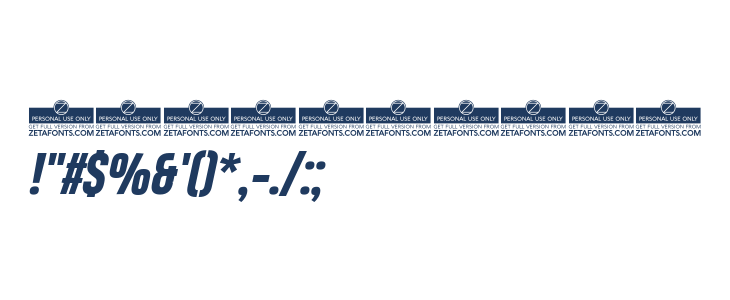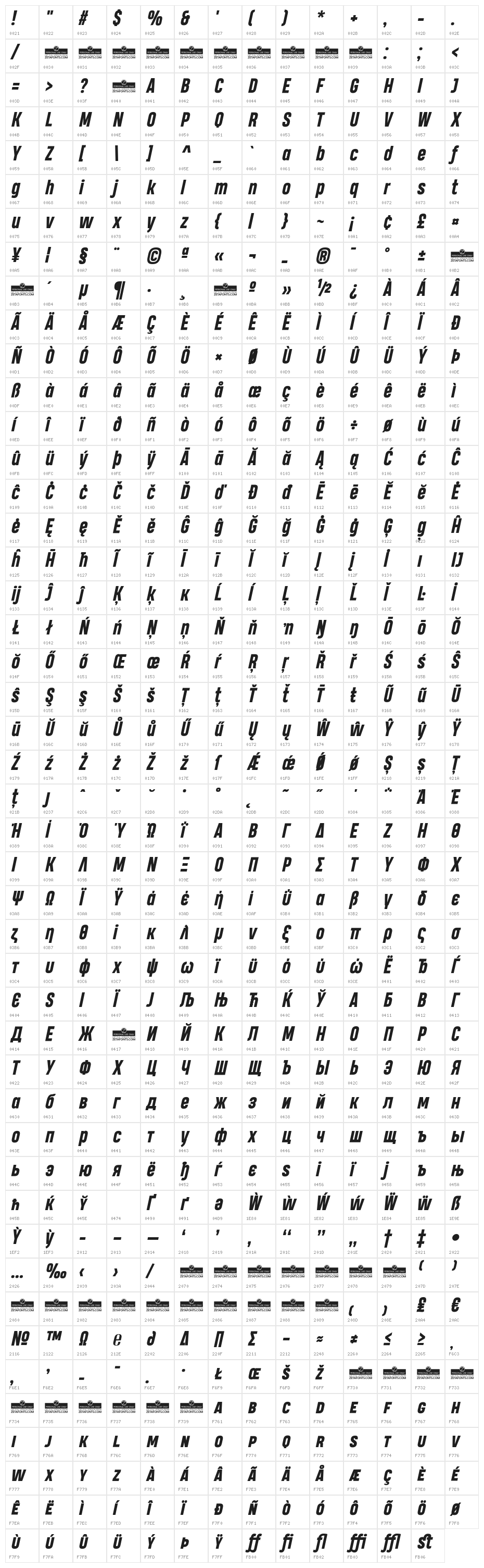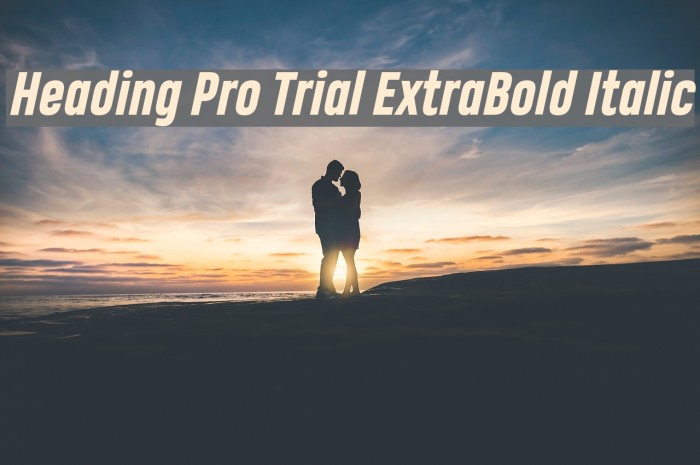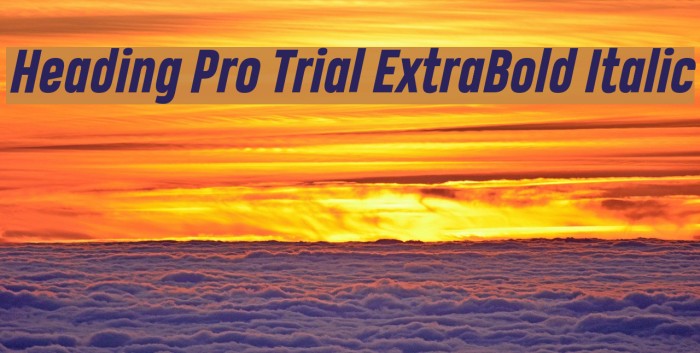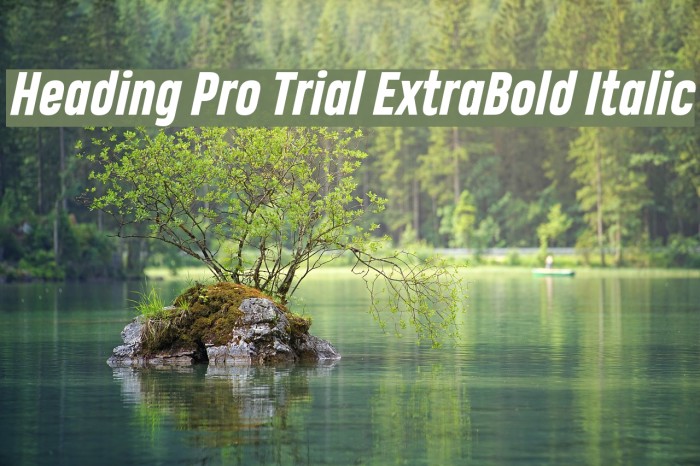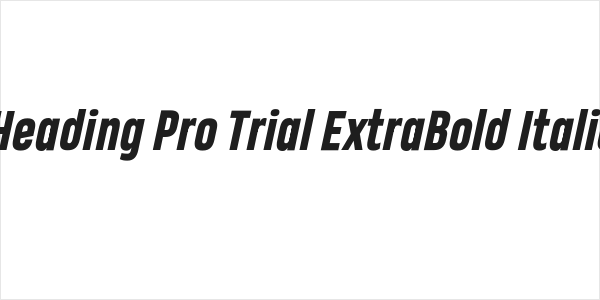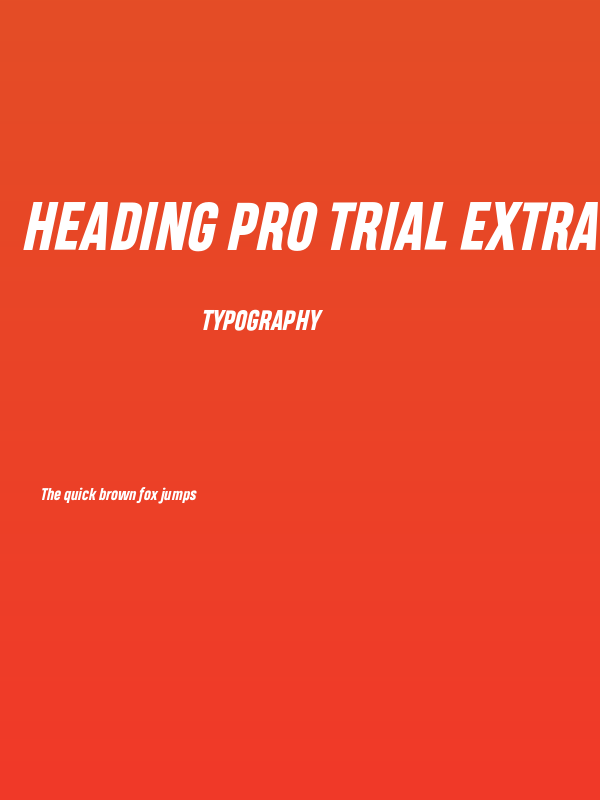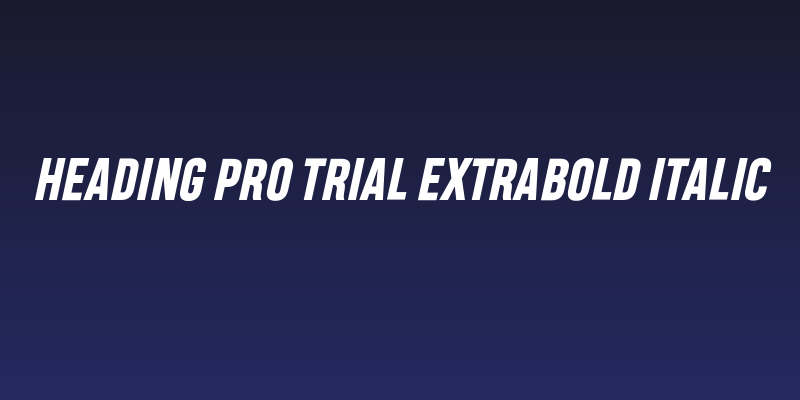
Heading Pro Trial ExtraBold Italic Font
Heading Pro Trial ExtraBold Italic Description
This typeface features a bold and assertive design, characterized by its extra bold weight and italic style. The letters are slightly slanted, adding a dynamic and energetic feel to the text. The strokes are thick and consistent, providing a strong visual impact. The font maintains a modern and sleek appearance, making it suitable for attention-grabbing headlines and titles. The character spacing is tight, which enhances the compact and powerful look of the text. The overall style is contemporary, with a focus on clarity and readability, even at smaller sizes.
| Proposed Projects | Ideal for use in headlines, posters, branding, and advertising where a strong visual presence is needed. |